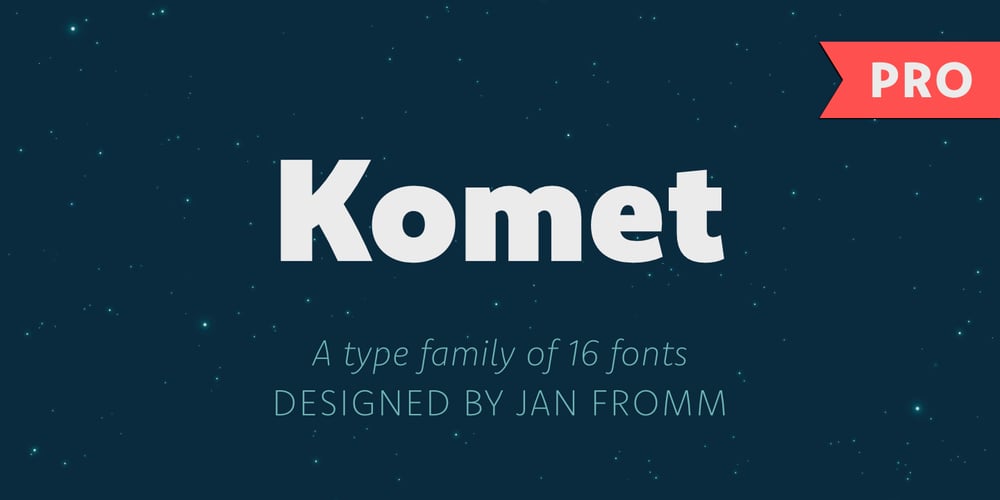
Komet Pro Font Family was designed by Jan Fromm and published by Jan Fromm. Komet Pro contains 16 styles and family package options. Komet is a sturdy typeface with a calm and upright feel. Although it derives inspiration from classical English sans-serifs, it’s not too closely related to that model. Komet, instead, feels rather more lively and contemporary. Its compact spacing, low stroke contrast and heavy dots and accents give it an almost monolinear quality. The diagonals are slightly curved and the counters of the round letters such as b, o and q are generously wide. The muted, understated middle weights are built for extended body copy, while Komet’s thin and dark weights look brisk and assertive and make for subtly expressive headlines. Komet is an ideal choice for editorial design, branding and corporate design. The Komet Pro family comes in eight weights with matching italics, from Thin to Black. Each font contains around 850 glyphs, including a rich repertoire of OpenType features. Small caps, ligatures, ten different figure sets with matching currency symbols, stylistic alternates and arrows make Komet Pro a comprehensive toolkit for ambitious typography.